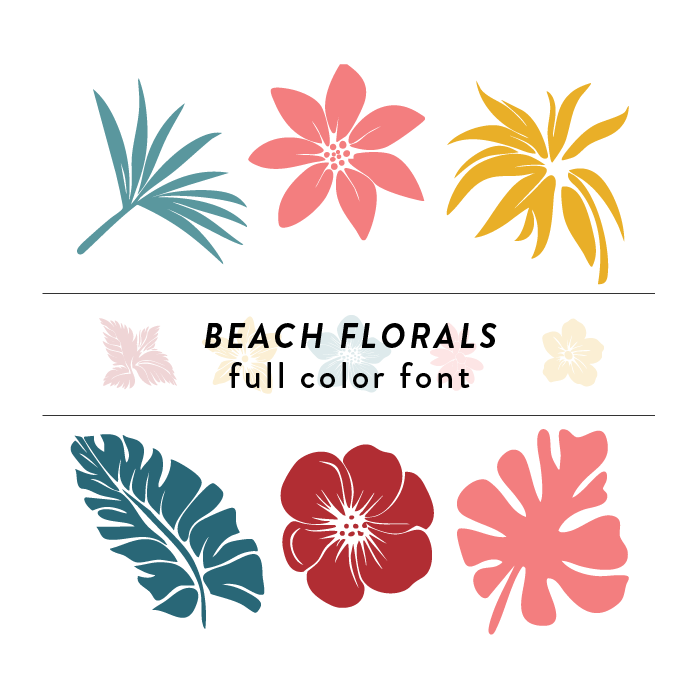
The Beach Florals Full Color Font is a whimsical and vibrant font design inspired by the beauty of beach florals. With intricate floral patterns and a full color palette, this font is perfect for adding a touch of summer and nature to any design project. It is ideal for crafting projects, beach-themed designs, and floral-inspired creations. This font is a OTF craft font that will appear in color only when used with the silhouette software.